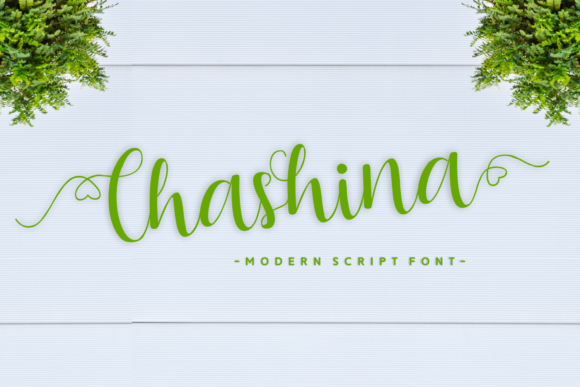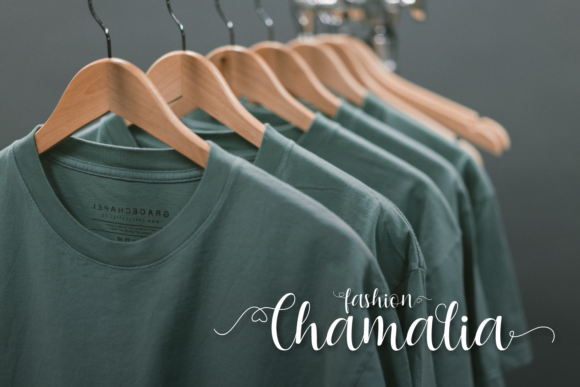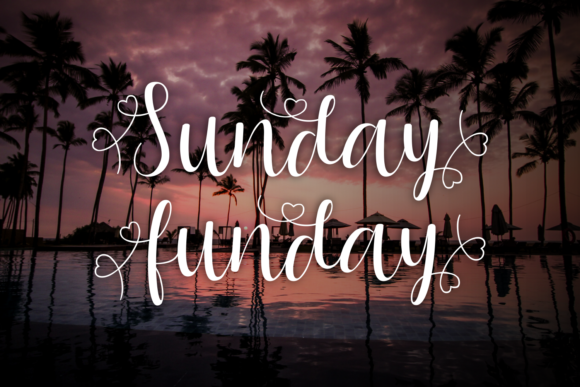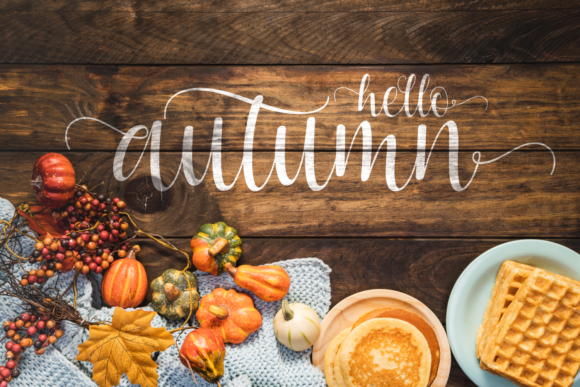
Chashina Font
About Chashina Font
Chashina is an incredibly beautiful and sweet handwritten font that will add a unique style to any design. Get inspired by its modern simplicity!